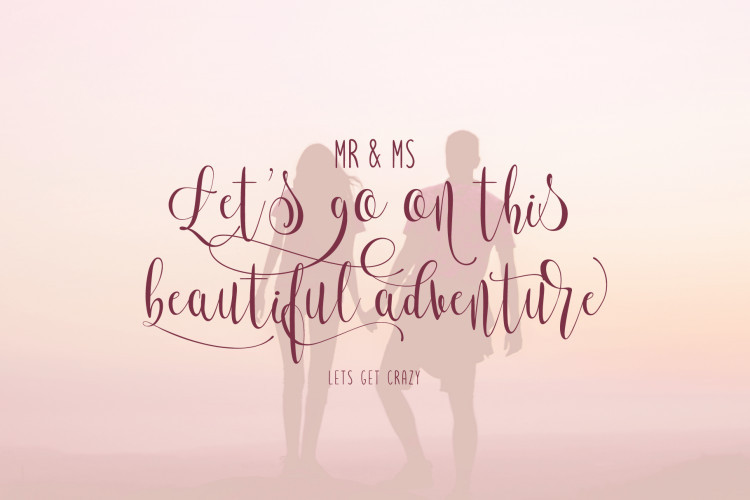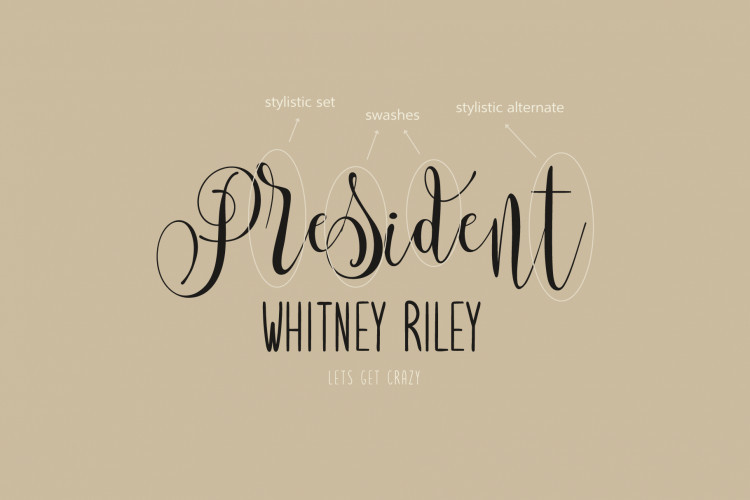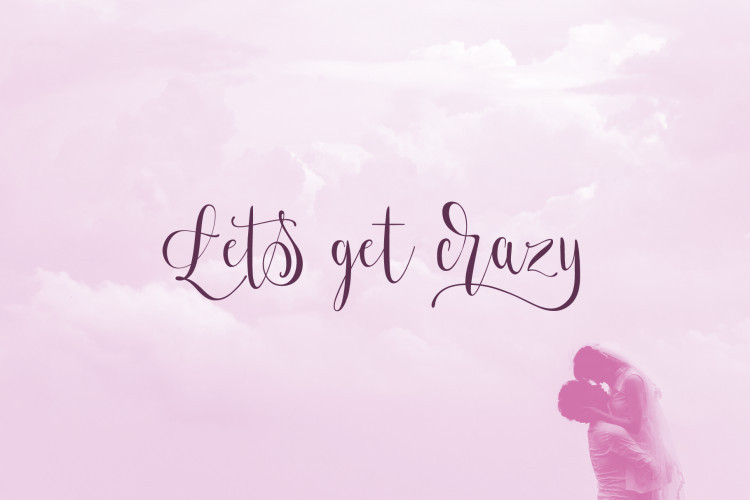
Lets Get Crazy Font Duo
Lets Get Crazy Font Duo – A unique combination of a beautiful handwritten type and a minimal sans-serif font that can create striking luxury designs and outstanding logos. It’s designed by vectalex. It’s a font inspired by modern lettering/calligraphy with pronounced swashes, ascending / descending and crazy ear in “r” (that btw you have more ordinary alternates) and so on, challenging the boundaries of reasonable. Lets Get Crazy Script and Sans is good for titles or short sentences in combo with lets get crazy sans serif majuscule letters, giving you a nice pairing of the modern lettering.